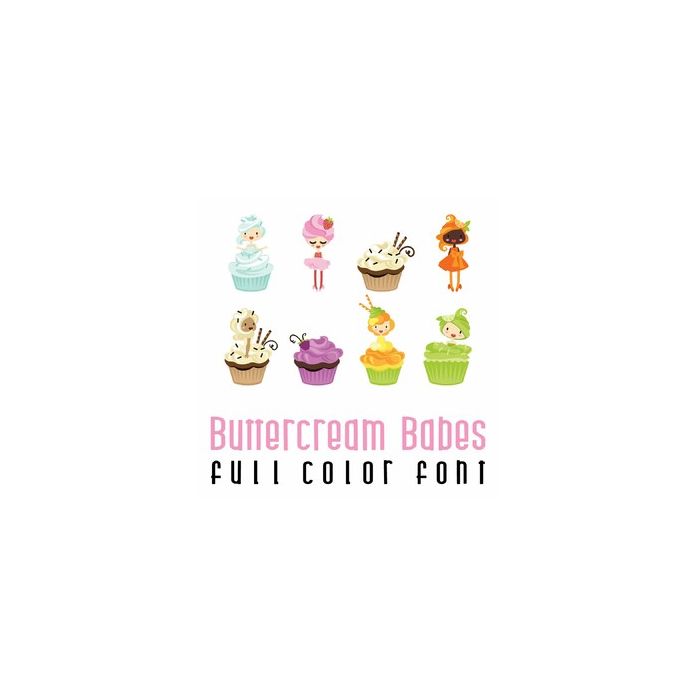
This adorable full-color doodlebat font features cupcake darlings are deliciously dressed as frosted cupcakes.. Perfect for cards, crafts, gifts, decor, scrapbook pages, planner stickers, and more!